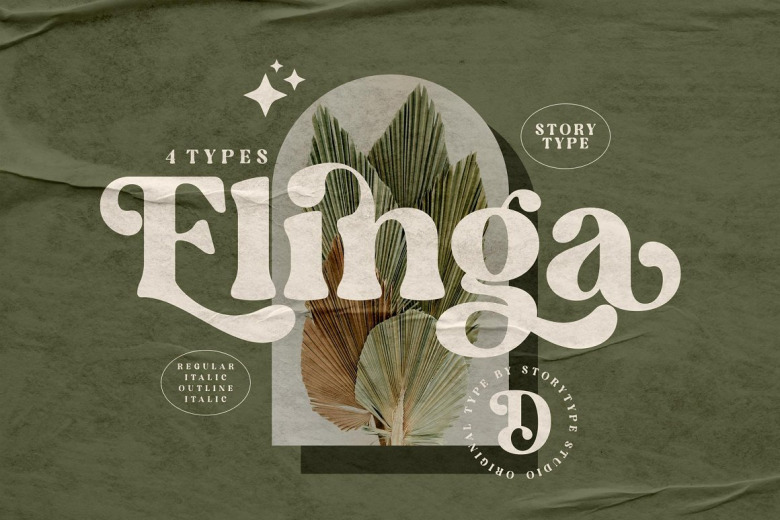
Elinga Font
Elinga is a modern font that is both memorable and stylish. The smooth curves of the a and the curved stems of the ascending letters make for a unique font. This typeface is perfect for an elegant & luxury logo, book or movie title design, fashion brand, magazine, clothes, lettering, quotes, and so much more.